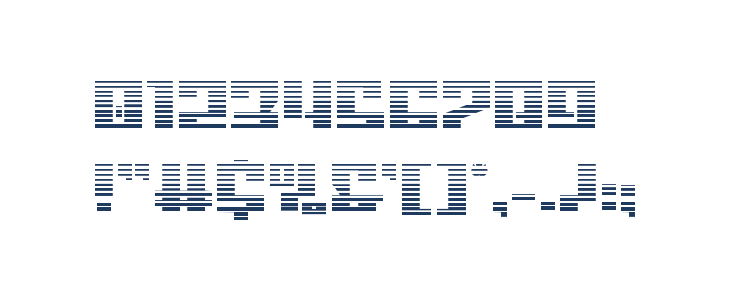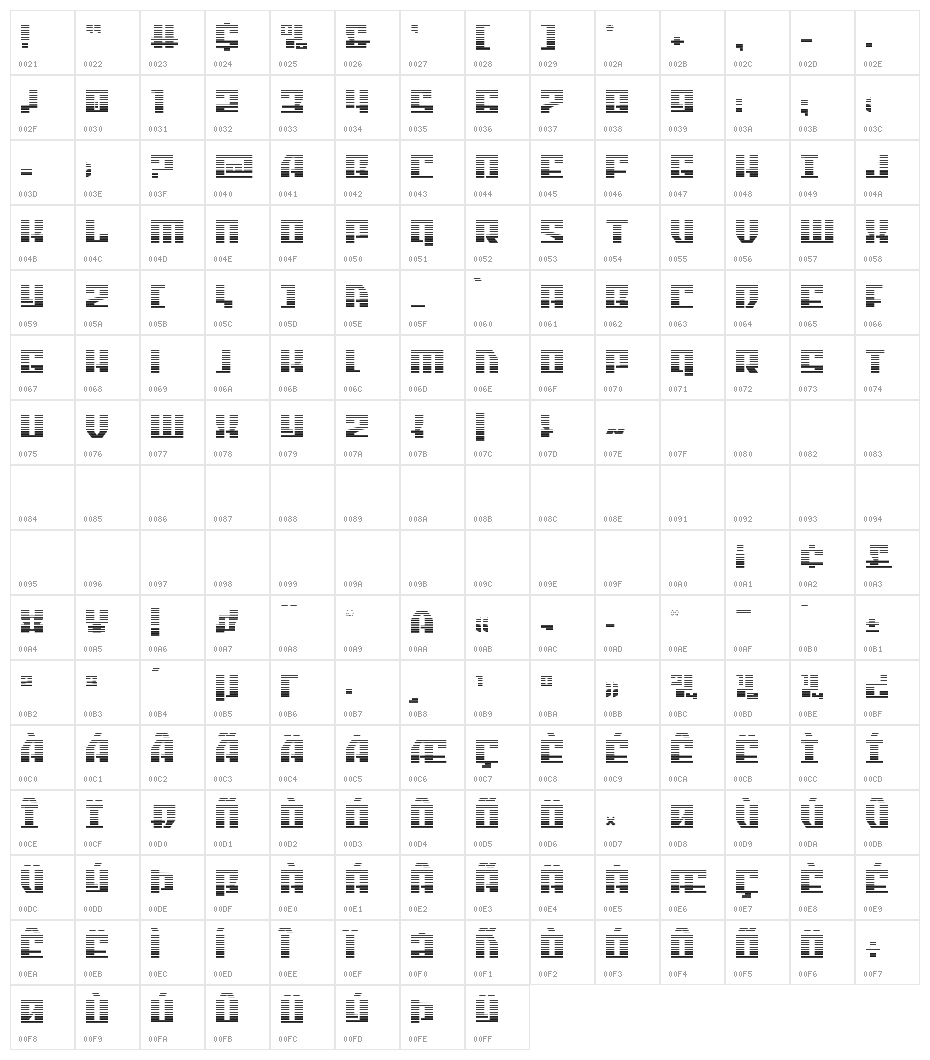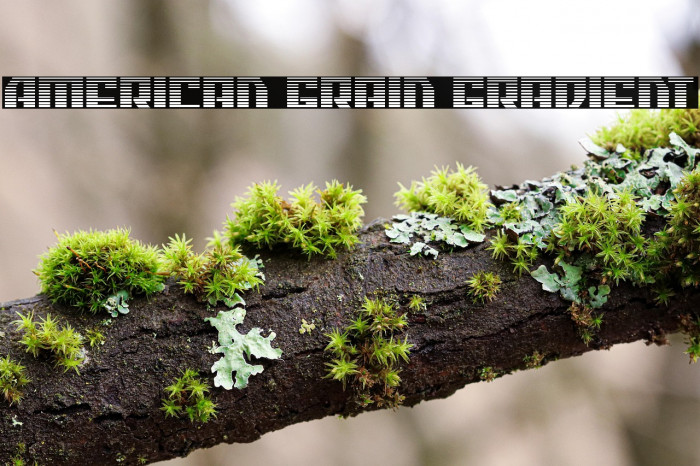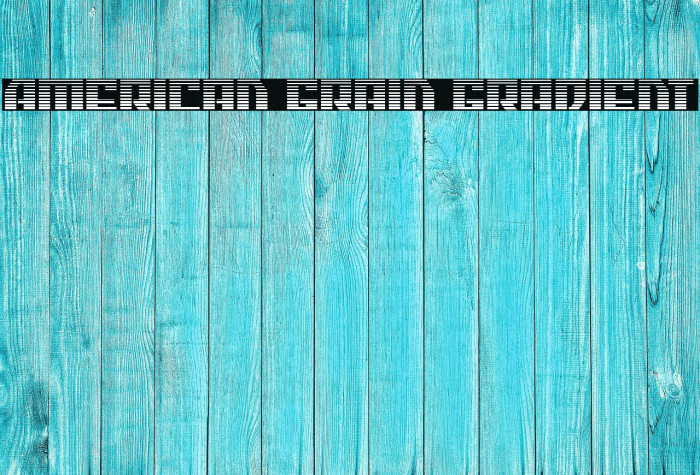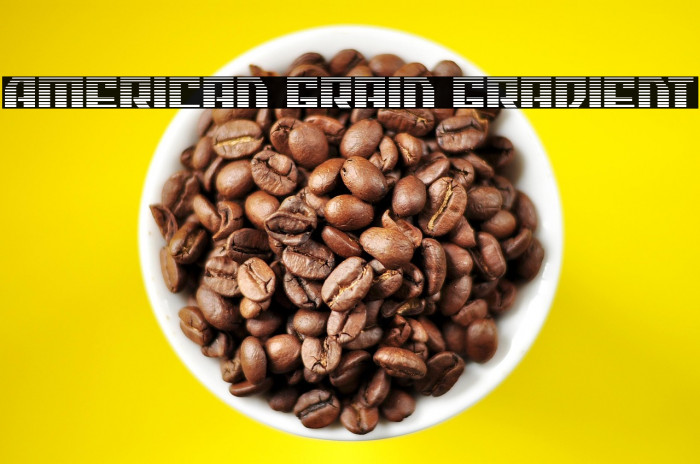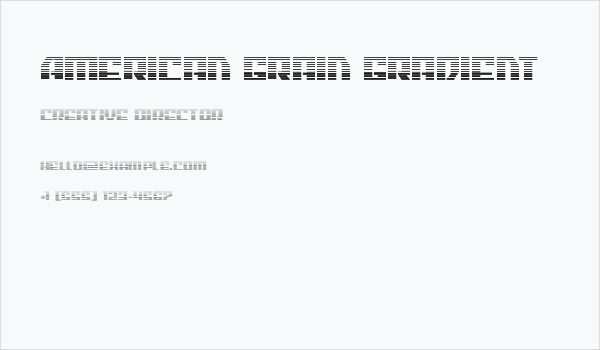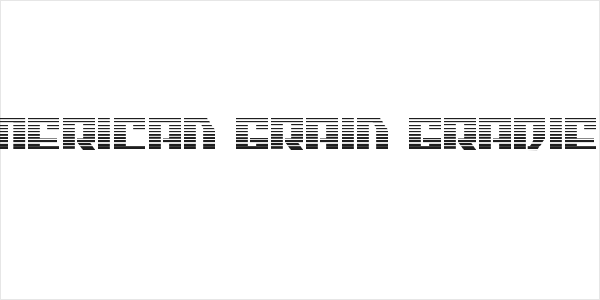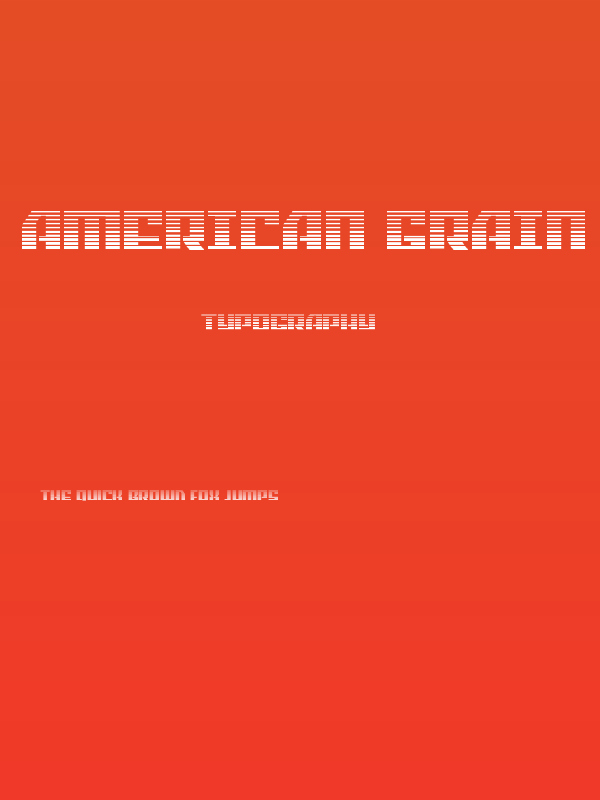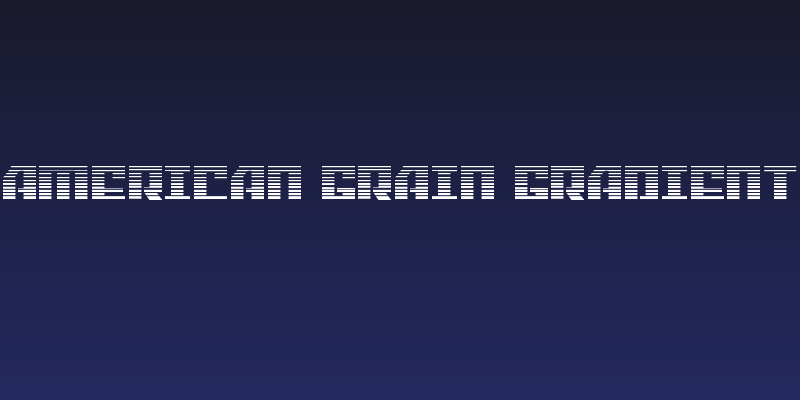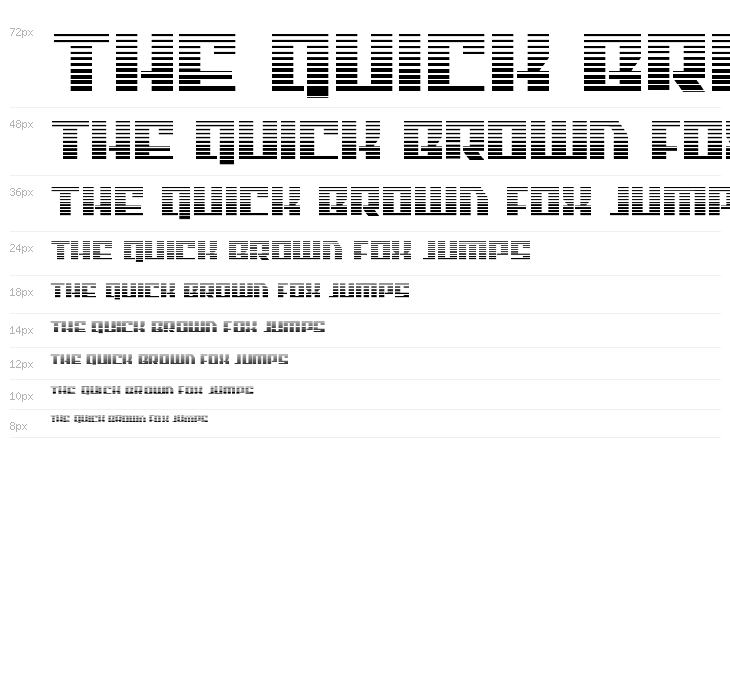
American Grain Gradient Font
American Grain Gradient Description
This font features a unique striped pattern that gives it a dynamic and modern appearance. Each character is composed of horizontal lines that create a gradient effect, adding depth and texture. The uppercase and lowercase letters maintain a consistent style, with sharp angles and geometric shapes. The numerals and special characters follow the same design principles, ensuring uniformity across all glyphs. This font's distinct style makes it stand out, making it suitable for eye-catching designs.
| Proposed Projects | Ideal for branding, posters, digital art, and any project requiring a bold, modern aesthetic. |